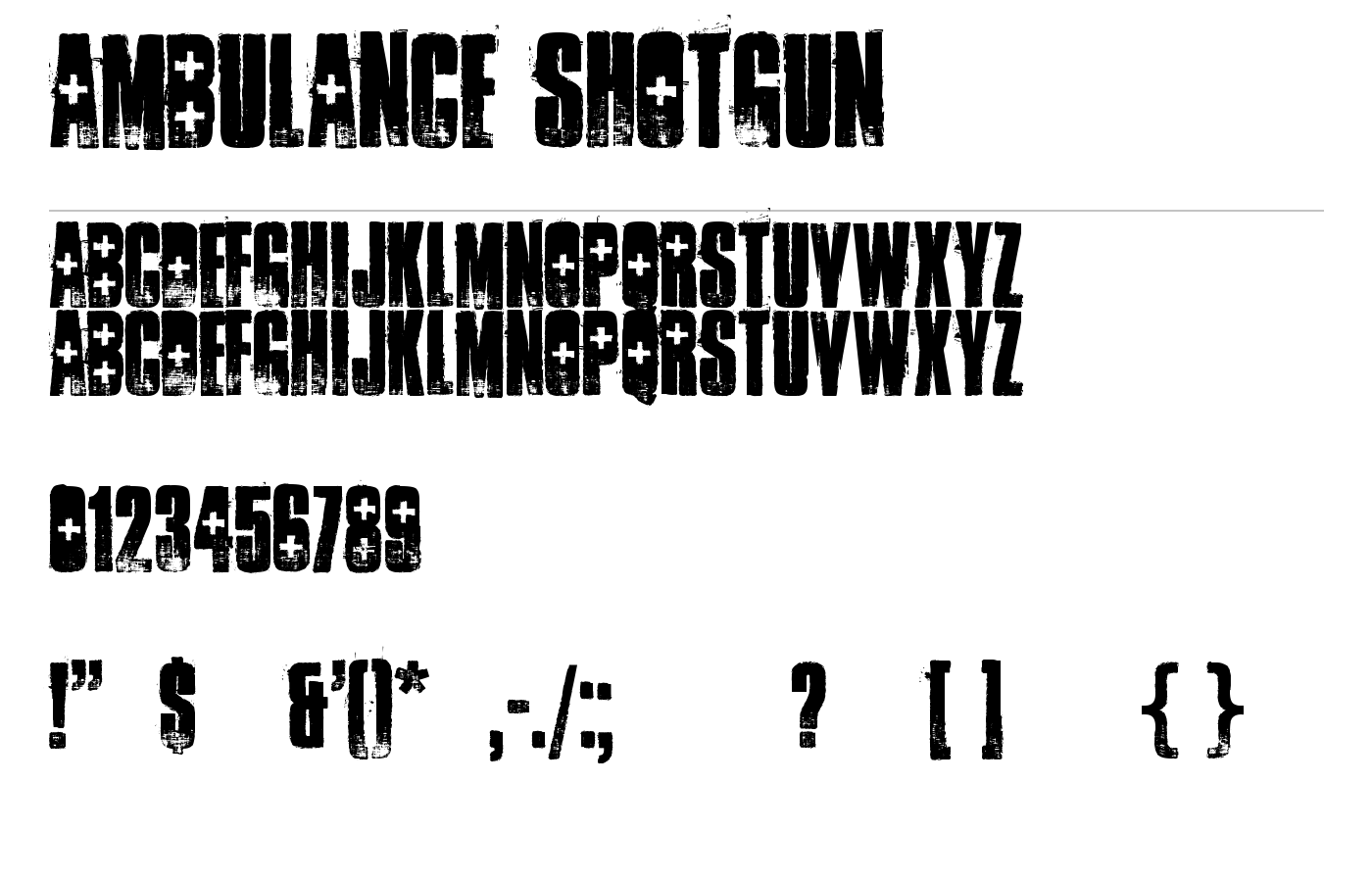
Ambulance Shotgun is a bold, condensed sans serif font featuring a distressed, gritty texture that gives it a raw, urban feel. Its tall, tightly spaced characters with irregular edges convey a strong, rebellious energy, making it ideal for edgy designs, posters, and branding that demand attention with a rough, streetwise personality. This font works best in bold headlines or display use where its rugged style can create a striking impact.